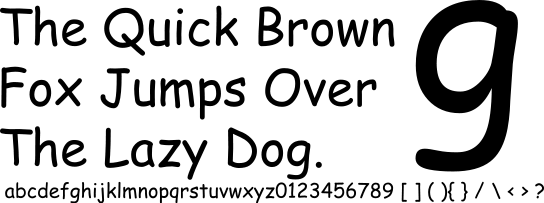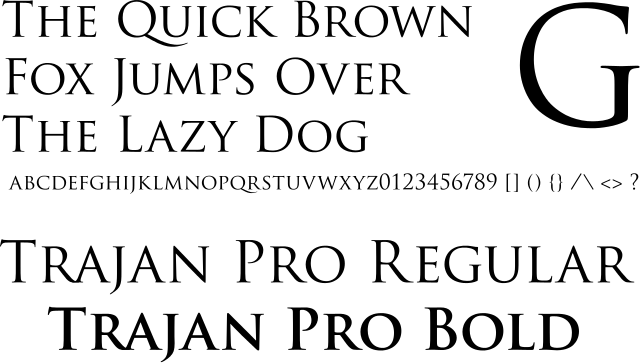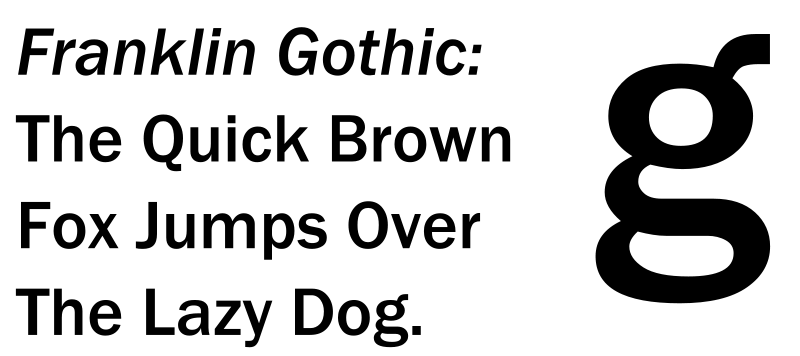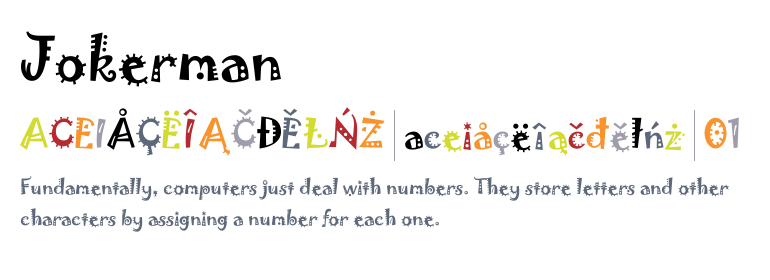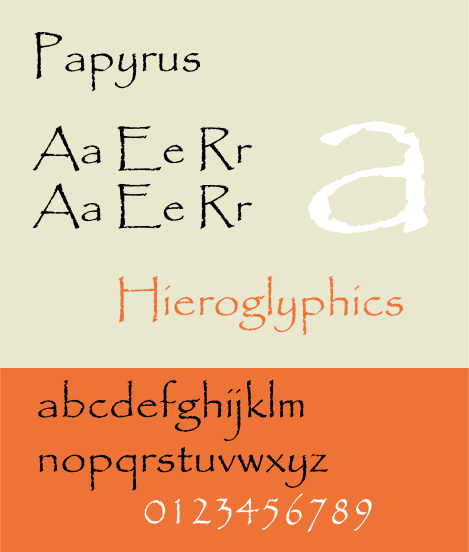
The 5 Worst Fonts to Use in Design
Whether you are designing something for social media, a print ad, or a book cover, if you’re including text in your design, it is imperative to choose the right font. The font does a lot in your design, such as representing your brand, increasing legibility, and contributing to the overall aesthetic. The funny thing about font though, is that you don’t normally notice it. Think about it, when is the last time you read something and thought about the font the designer used? Probably never, or at least not very often. You only notice font if it’s exceptionally beautiful or outrageously hideous. Fortunately, these days there are thousands of fonts out there for you to choose from. Unfortunately, that makes it easier to choose the wrong font for the look and feel you are trying to achieve. Here are the 5 worst fonts to use in design.
What makes a font bad?
When it comes to the worst (and even the best) fonts to use in design, it’s not exactly set in stone. Though there is no strict ruling regarding what exactly makes a bad font, there does seem to be a broad consensus, especially when it comes to Comic Sans. The worst fonts have a few things in common such as they don’t align with our understanding and perception of balance, they are not legible, there is nothing unique about them, they try too hard to stand out and just miss the mark completely, or they are so overused they have simply lost their appeal.
comic sans font
Comic Sans
Everybody hates Comic Sans, that is pretty much a fact, making it one of the worst fonts out there. Designed in 1994 by Vincent Connare, Comic Sans was inspired by comic book type and was intended to be used for the speech bubbles of an animated cartoon dog, Rover. Rover was designed to help people navigate the Microsoft Windows user face and was supposed to be friendly and playful. In 2002, two typographers started a “Ban Comic Sans” movement, which quickly gained traction worldwide as designers from around the globe voiced their dislike for the font.
trajan pro font
Trajan Pro
There does not necessarily need to be anything blatantly wrong with a font for it to be considered one of the worst fonts and an awful choice for your design. When it comes to Trajan Pro, it is so overused that no one wants to see it anymore. From movie posters to book covers, this font has been completely exhausted. Trajan Pro has been included in almost every edition of Adobe’s Creative Suite and was at a time one of only a few fonts available to designers. These days there are hundreds of thousands of fonts available to choose from, meaning you can branch out and choose a font that was not showcased on almost every single movie poster.
Franklin Gothic font
Franklin Gothic
Another font that is so overused it has lost its appeal in the world of digital design is Franklin Gothic. Often used to portray a “classic” look, Franklin Gothic has been used by bloggers and designers alike trying to build credibility. This font would be great for a newspaper, or if you’re really set on it, as a headline or other minor design element, but this font absolutely should not be used for the bulk of your design.
Pro tip: though some fonts are so overused they have lost their appeal, there are those other tried-and-tested fonts that will never get old. If you are looking for a timeless, classic font for your design, consider Orpheus, Canela or Avenir.
Jokerman font sample with decorative multicolored letters
Jokerman
Legibility can make or break a font. Odds are if you are using text in your design, you want it to be legible. Jokerman is one of the worst unreadable fonts out there. The little curls, dots, and squiggles attached to each letter distract the audience from the text they are trying to read. Though this font is distinct and will leave an impression, it may not be the impression you are looking for. This font is hard on the eyes for anyone, but can cause extra problems for those with poor eyesight or dyslexia. Serifs and other text decorations can obscure the shapes of letters, making them run together. Sans-serif fonts allow dyslexic users to see the shapes of the letters clearer. The lack of decoration increases the space between the letters, making them more distinguishable.
Papyrus font specimen sheet with Hieroglyphics sample text
Papyrus
Yet another font that has been overused to the point where it is no longer popular, Papyrus makes the cut for one of the five worst fonts. Papyrus was initially a go-to because it was both simple and sophisticated. It was also one of the fonts that came preloaded in Word, which made it very convenient. Papyrus is often named one of the most overused fonts in a designer’s toolbox. If you’re looking to be original, it is best to avoid using this one in your design.
Pro tip: when you are choosing a font, think about the context it will be used in. Is this going to be a quick headline? A slogan that people will have to slow down and read? Also, consider if this is going to be a design for digital or print. The font you choose should not only look good but should also fit the style and goal of your design.
Embed your fonts into your PDF
It is crucial to embed your fonts in your PDF, especially if you are using a specialty font. Embedding fonts in your PDF file will allow anyone that opens your file to view the document as you intended. If you do not embed a font, the PDF viewer will substitute the font if it is not available on the computer being used to view the document. Though the computer will substitute the font with a similar one, it will not be exactly what you designed. This is an especially important step for documents designed for print. Most printers do not have specialty fonts downloaded and will replace them, resulting in an outcome you did not intend. If you have any questions regarding embedding fonts into your PDF, contact Printivity.